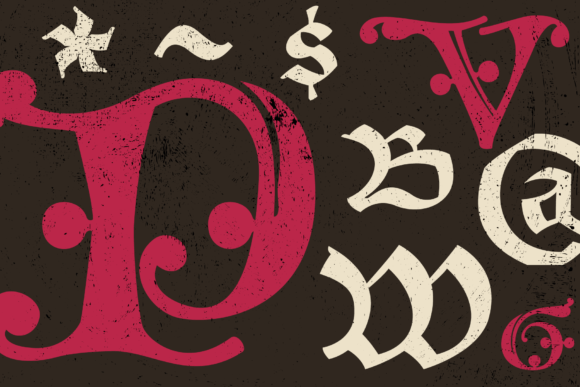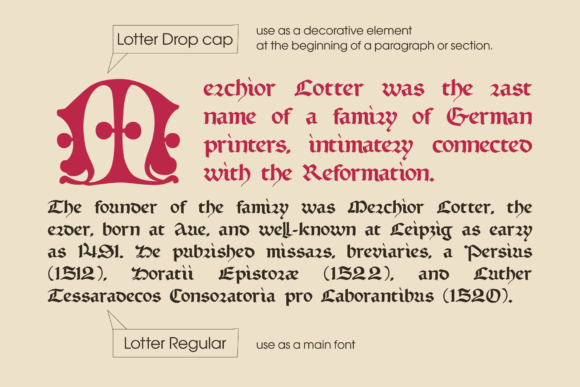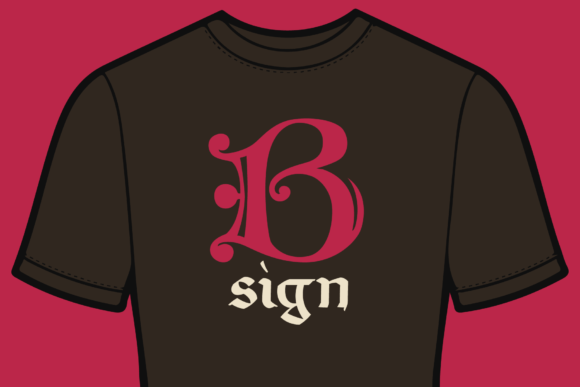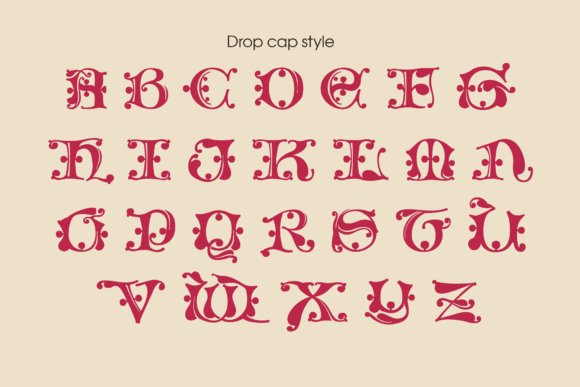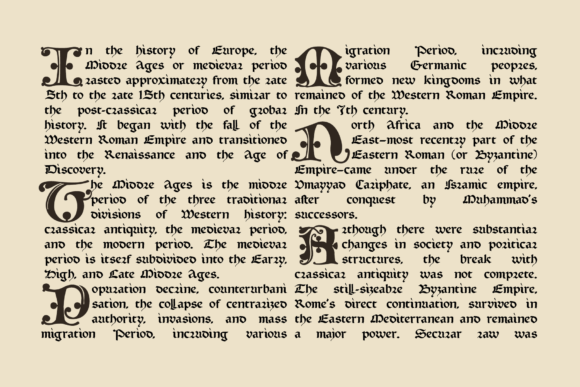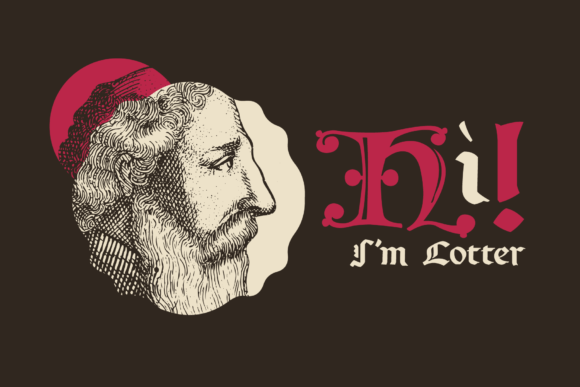
Introduction to Lotter Font
Imagine yourself pouring over dusty tomes in a quiet library, the flickering candlelight dancing across the pages as you stumble upon a hidden treasure of medieval typography. The intricate blackletter font that catches your eye is none other than the Lotter Font, a masterpiece inspired by the hand-colored engravings of a 16th-century book.
For designers seeking a unique design resource, the Lotter Font is a high-quality treasure trove. With its stunning blackletter style and transparent background, it’s the perfect tool for adding a touch of medieval flair to your creative project. Whether you’re crafting a fantasy novel or designing a historical website, this font is sure to transport your audience to a bygone era.
Key Features of Lotter Font
- Lotter Font features a transparent background, making it easy to use on various backgrounds
- Includes a range of characters and glyphs, making it suitable for a variety of creative projects
- Designed with a unique aesthetic, Lotter Font is perfect for adding a touch of elegance to any design
Honest Review: Lotter Font
I recently had the chance to work with the Lotter Font and I must say, I was pleasantly surprised. This free download has become one of my go-to design resources for creating high-quality, visually appealing graphics.
What works well with the Lotter Font is its unique and playful style, making it perfect for creative projects that need a bit of whimsy. The font is highly customizable and works well on both light and dark backgrounds. I particularly love that it comes with a transparent background option, which gives me the flexibility to easily place it over any image or color scheme.
Here are some of the features that I particularly appreciate:
- Unique and playful style that adds a touch of personality to designs
- Customizable and easy to use
- Transparent background option for added flexibility
My only limitation with the Lotter Font is that it’s a bit limited in its font weight options. If I’m working on a project that requires a bold, attention-grabbing font, I may need to look elsewhere.
Lotter Font
The Lotter Font is a high-quality design resource perfect for adding a creative touch to your projects. With its transparent background, this font is versatile and easy to use.
Tips for Getting the Most Out of Lotter Font
To get the most out of the Lotter Font, experiment with different font sizes and styles. You can also combine it with other design elements to create a unique look.
The Lotter Font is perfect for a variety of creative projects, including:
– Posters and flyers
– Presentations and documents
– Web design and development